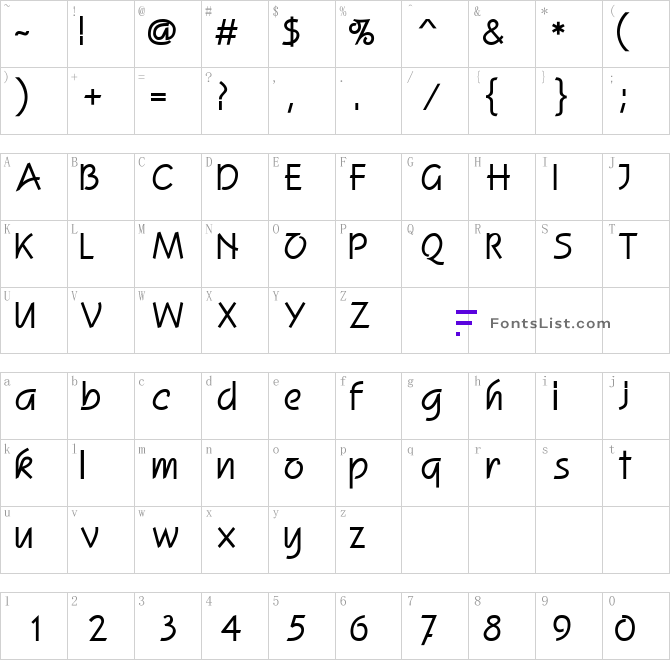
- Font Name:Aduren
Aduren.ttf is a very beautiful artistic font, Aduren.ttf is widely used in the design and printing of various books and pictures,Aduren.ttf has a strong visual impact,Aduren.ttf is a commonly used font in newspapers, magazines and books, and is used in posters, e-commerce Poster design, store design, logo design, font design and other fields.Aduren.